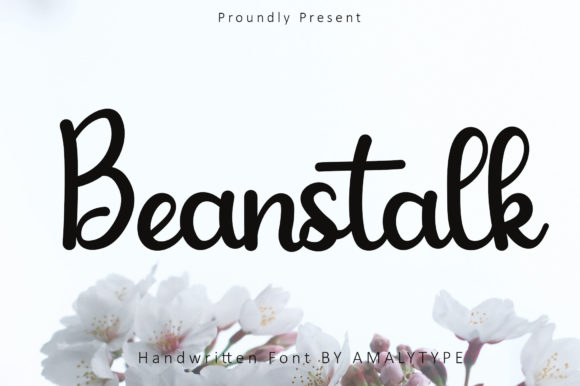
Introducing Beanstalk Font: Elevate Your Designs with a Touch of Luxury
Are you on the hunt for a font that can add a dash of elegance and sophistication to your design projects? Look no further than Beanstalk Font, a beautiful and light handwritten font that is sure to make your designs stand out from the crowd. With its unique feel and stunning impact, Beanstalk Font is the perfect choice for designers and crafters looking to add a touch of luxury to their work.
The Unique Characteristics of Beanstalk Font
Beanstalk Font is a one-of-a-kind handwritten font that boasts a distinctive and stylish appearance. Its light and airy feel makes it perfect for use in a variety of design projects, from branding and packaging to wedding invitations and digital marketing materials. The font’s unique characteristics include:
- Handwritten with love: Beanstalk Font is carefully crafted with a personal touch, giving it a warm and inviting feel that is sure to resonate with your audience.
- Light and airy: The font’s light weight and airy texture make it perfect for use in designs where you want to convey a sense of elegance and sophistication.
- Unique feel: Beanstalk Font has a distinctive feel that sets it apart from other fonts. Its subtle imperfections and quirks give it a charming and endearing quality that is sure to capture your audience’s attention.
How to Use Beanstalk Font in Your Design Projects
Beanstalk Font is incredibly versatile and can be used in a wide range of design projects. Here are just a few ideas to get you started:
- Branding and packaging: Use Beanstalk Font to add a touch of luxury to your brand’s packaging and marketing materials.
- Wedding invitations: Make your wedding invitations truly special with Beanstalk Font, which is perfect for creating beautiful and elegant stationery.
- Digital marketing materials: Use Beanstalk Font to add a touch of sophistication to your digital marketing materials, such as social media graphics and email newsletters.
- Signage and displays: Beanstalk Font is perfect for use in signage and displays, where its elegant and refined appearance can help to draw attention to your message.
Why Choose Beanstalk Font?
With so many fonts to choose from, why should you choose Beanstalk Font for your design projects? Here are just a few reasons why Beanstalk Font stands out from the crowd:
- High-quality design: Beanstalk Font is carefully crafted with attention to detail, ensuring that it looks great in any design project.
- Unique and distinctive: Beanstalk Font has a unique and distinctive appearance that will help your designs to stand out from the crowd.
- Elegant and sophisticated: Beanstalk Font is the perfect choice for designers who want to convey a sense of elegance and sophistication in their work.
Tips for Getting the Most Out of Beanstalk Font
To get the most out of Beanstalk Font, here are a few tips to keep in mind:
- Use it sparingly: Beanstalk Font is a statement font, so use it sparingly to add emphasis and impact to your designs.
- Pair it with other fonts: Beanstalk Font pairs well with other fonts, so don’t be afraid to experiment with different combinations to find the perfect look for your design.
- Experiment with different sizes: Beanstalk Font looks great in a variety of sizes, so experiment with different sizes to find the perfect fit for your design.
| Font Name | Beanstalk Font |
| Author | amalytype |
In conclusion, Beanstalk Font is a beautiful and light handwritten font that is sure to add a touch of luxury to any design project. With its unique feel and stunning impact, Beanstalk Font is the perfect choice for designers and crafters looking to elevate their designs and make a lasting impression. Whether you’re working on a branding project, wedding invitation, or digital marketing materials, Beanstalk Font is the perfect choice for adding a touch of elegance and sophistication.